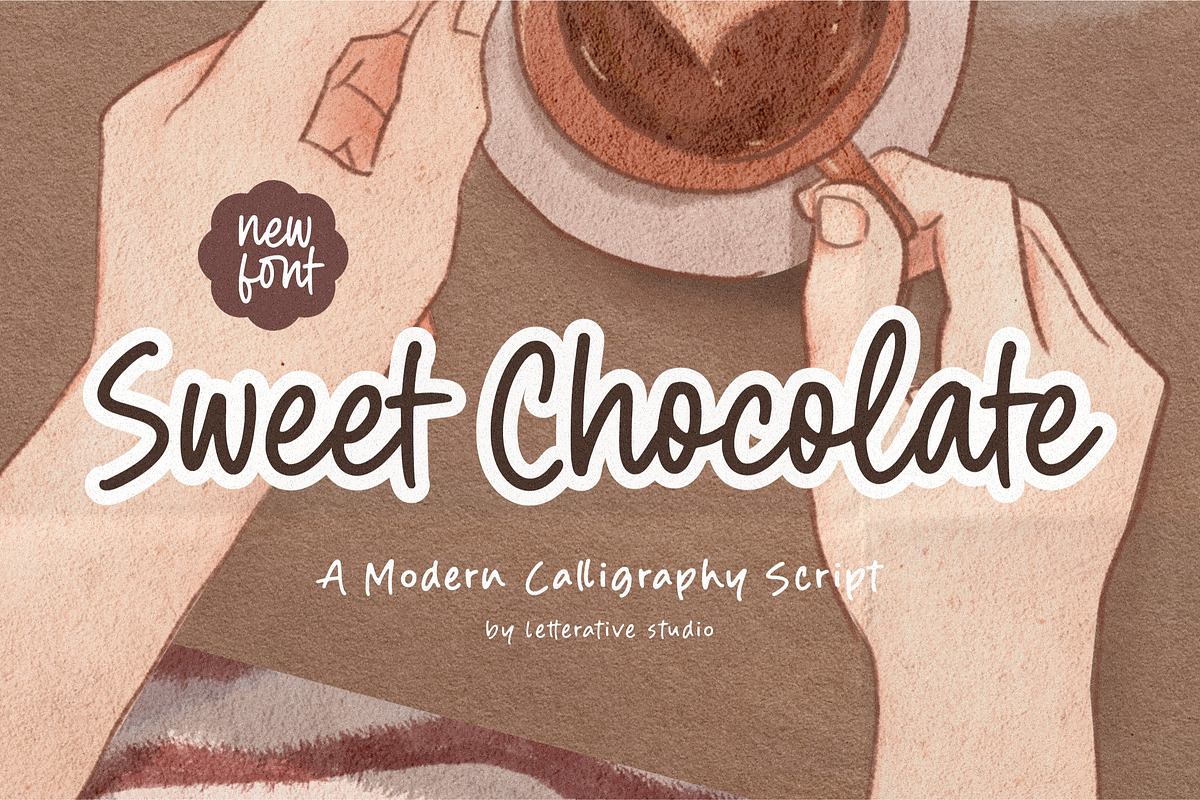
Sweet Chocolate - Modern Script Font Free Download is a smooth and elegant handwritten typeface with a modern twist. Featuring flowing curves, delicate swashes, and a touch of sweetness, this font is perfect for branding, product packaging, wedding invitations, social media graphics, and romantic quote designs.
Its stylish script style gives off a luxurious yet approachable feel, making it ideal for both feminine and lifestyle-oriented projects. Whether you're designing a logo for a boutique or creating eye-catching captions, Sweet Chocolate adds charm and sophistication effortlessly.